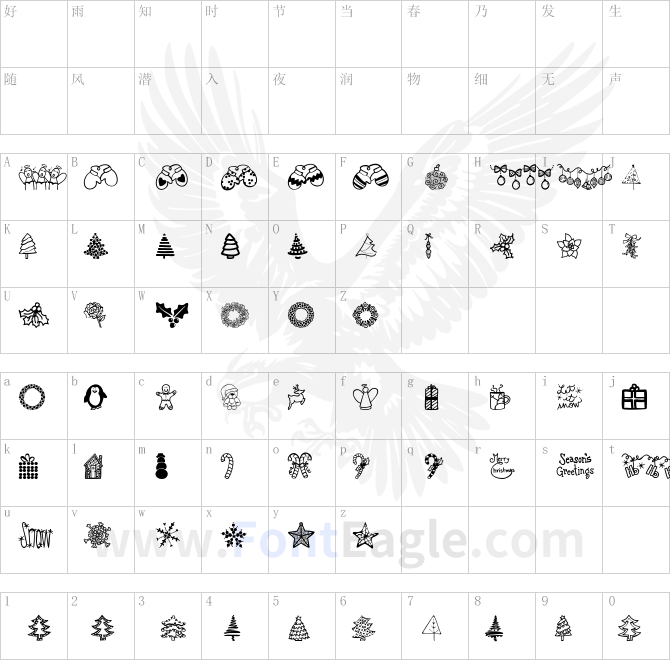
- Font name:Austie Bost Christmas Doodles
- Font Subfamily ID:AustinOwens: Austie Bost Christmas Doodles: 2012
- Font Full Name:Austie Bost Christmas Doodles
- Postscript:AustieBostChristmasDoodles